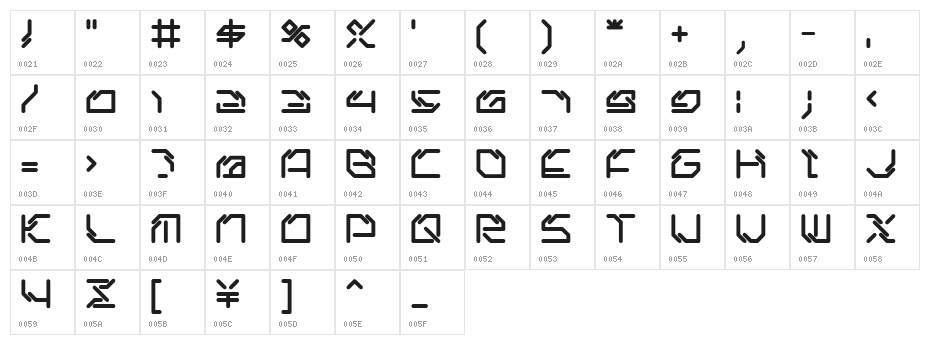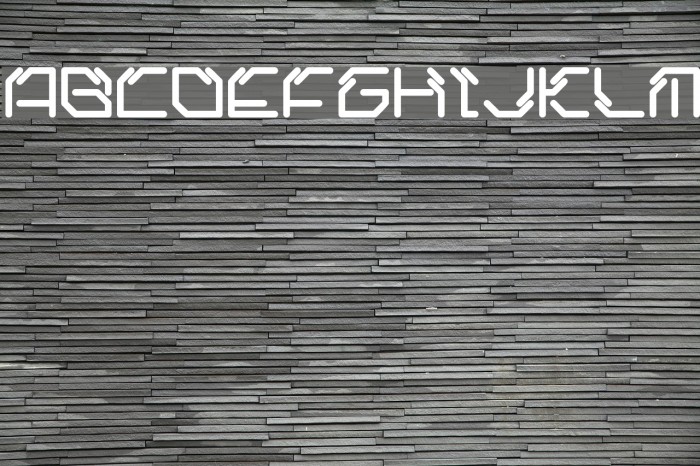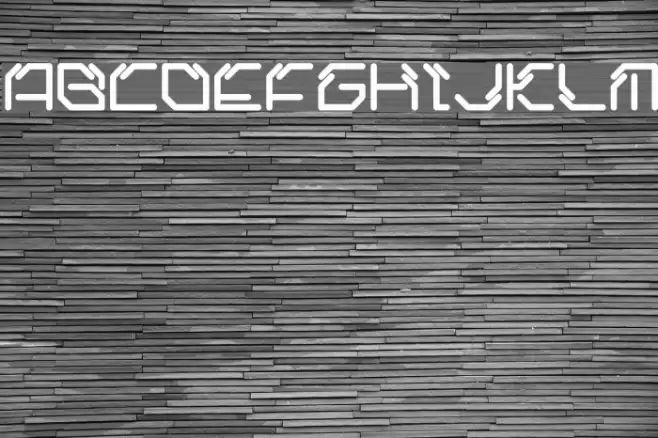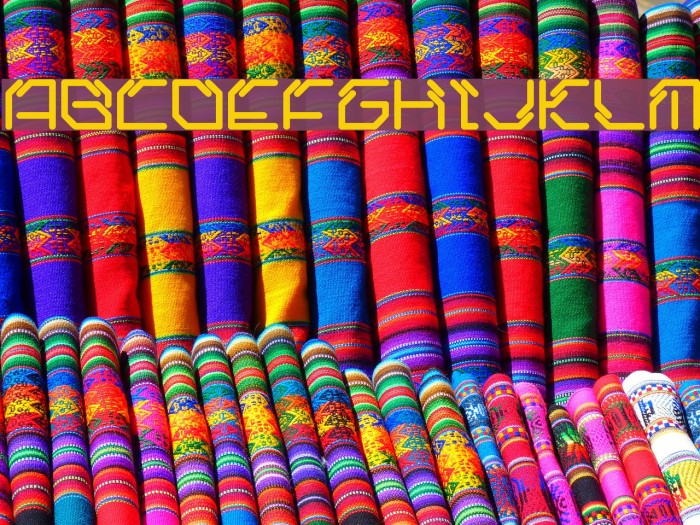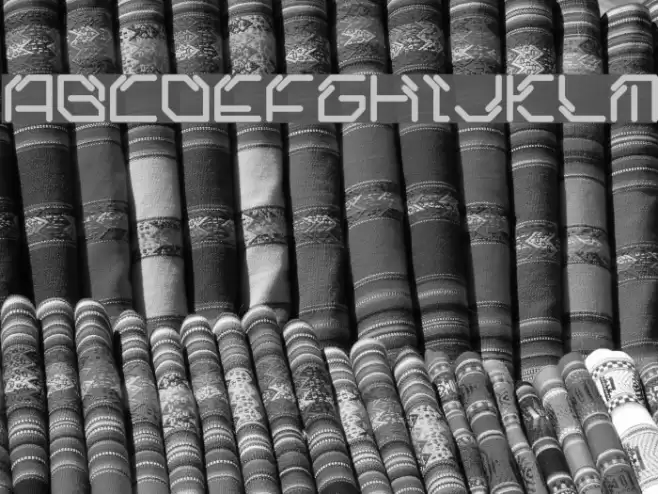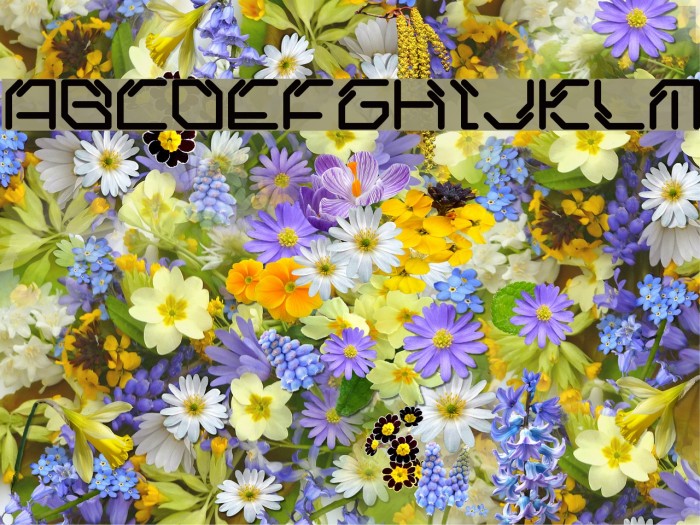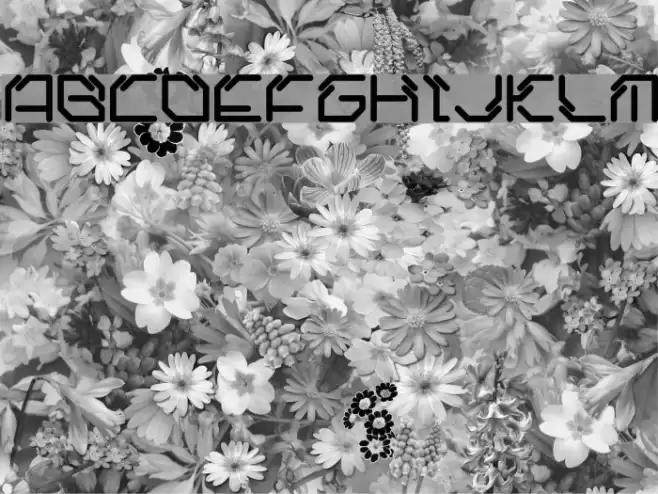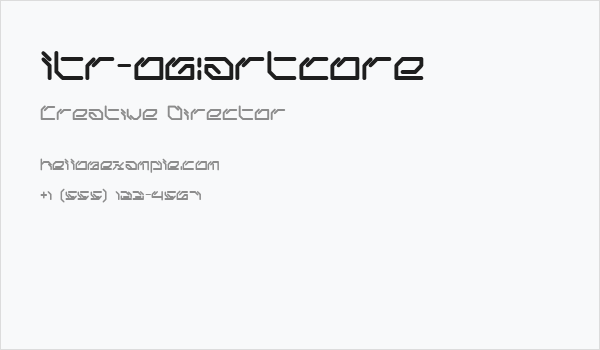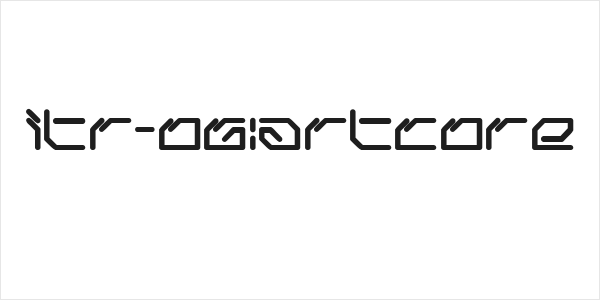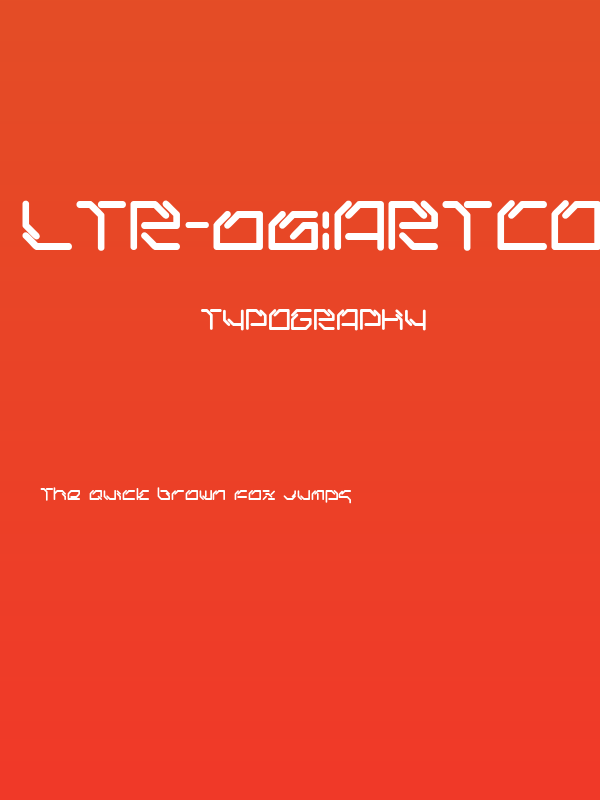
ltr-06:artcore Font
ltr-06:artcore Description
This font features a futuristic and geometric design, characterized by its angular and interconnected strokes. The letters are constructed with a consistent line thickness, creating a cohesive and modern appearance. The uppercase and lowercase letters maintain a uniform style, with unique cut-out sections that add a distinctive touch. Numbers and special characters follow the same design principles, ensuring visual harmony across all elements. The font's structure is both bold and minimalistic, making it suitable for contemporary and tech-oriented projects.